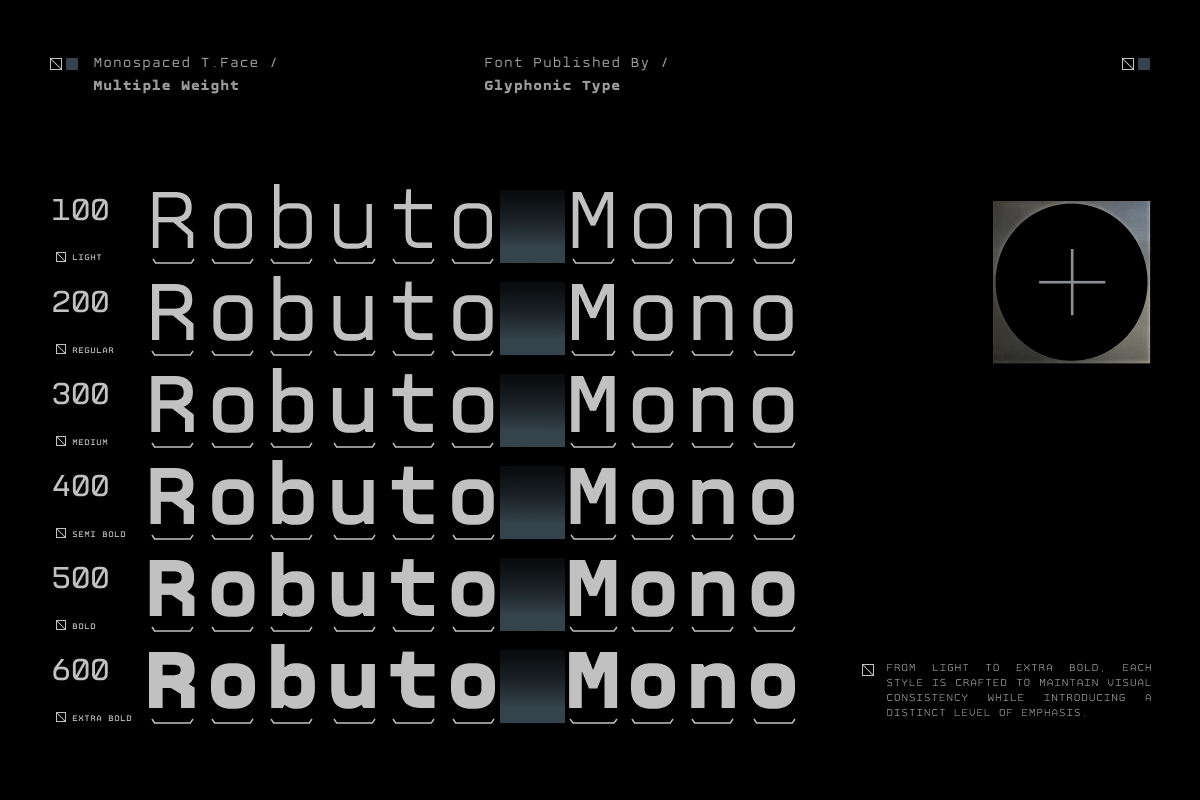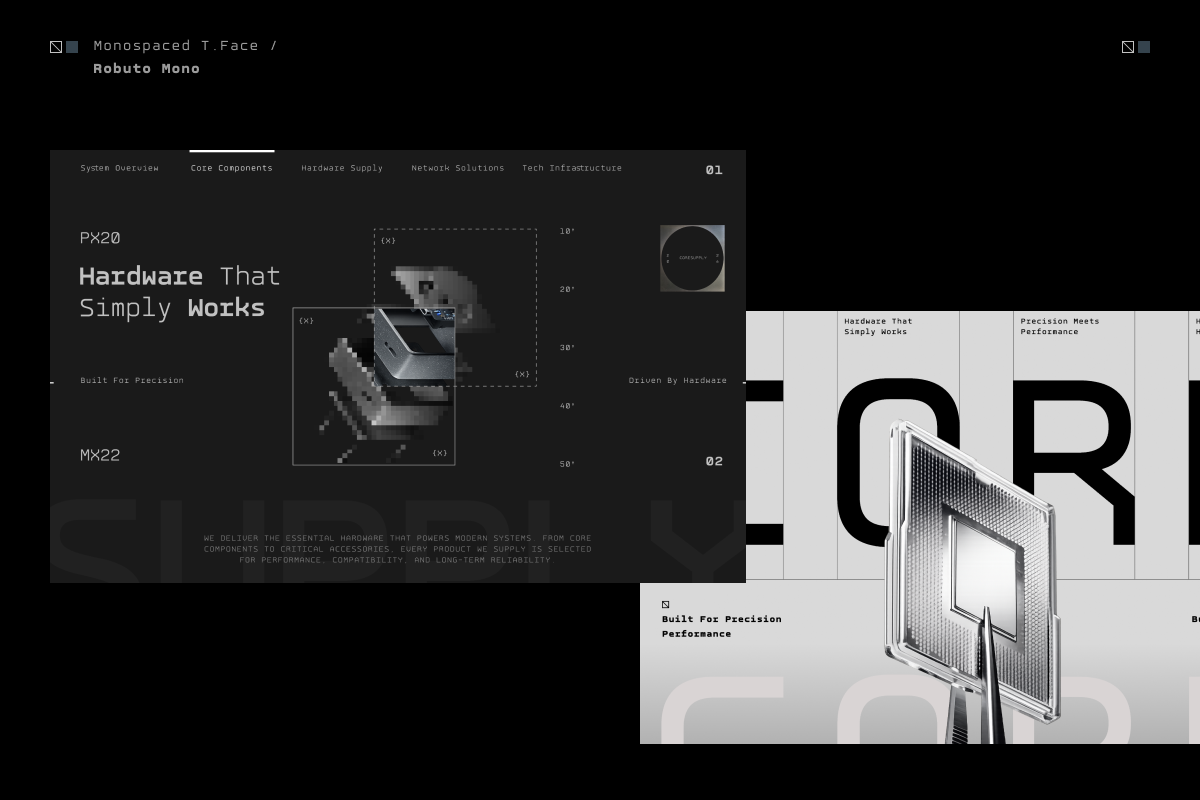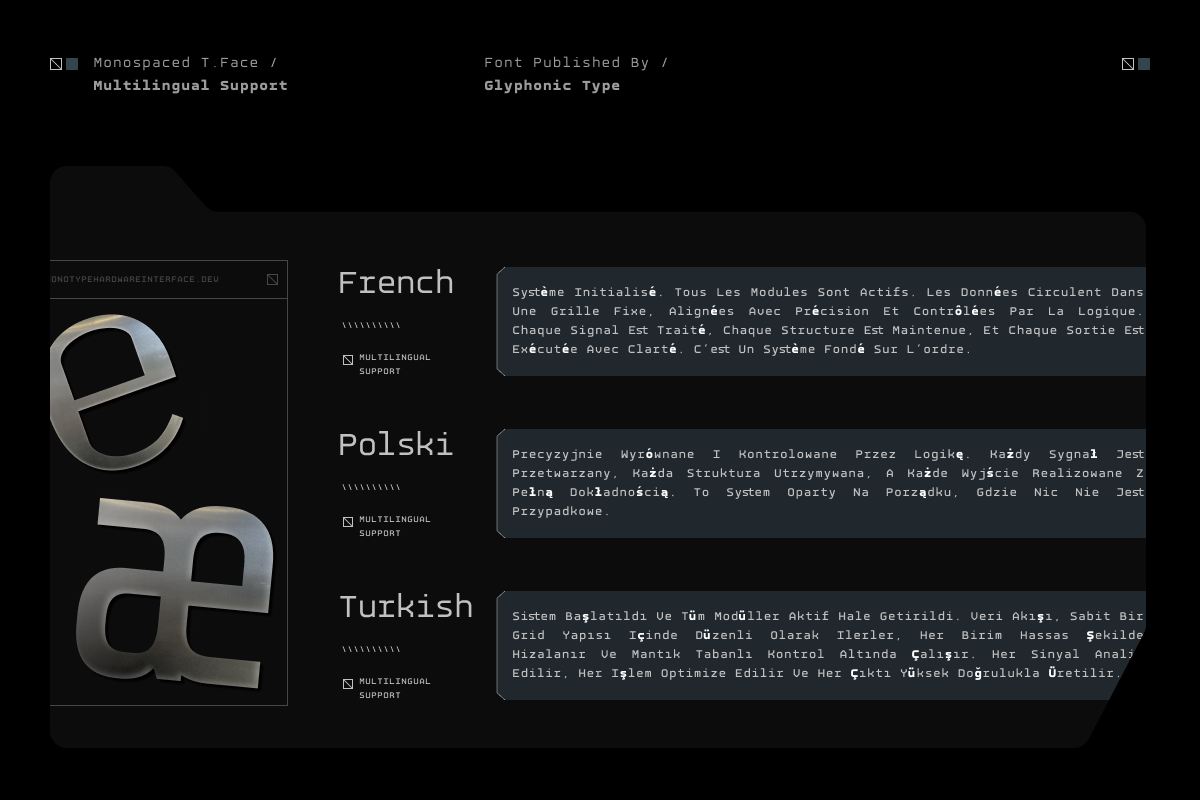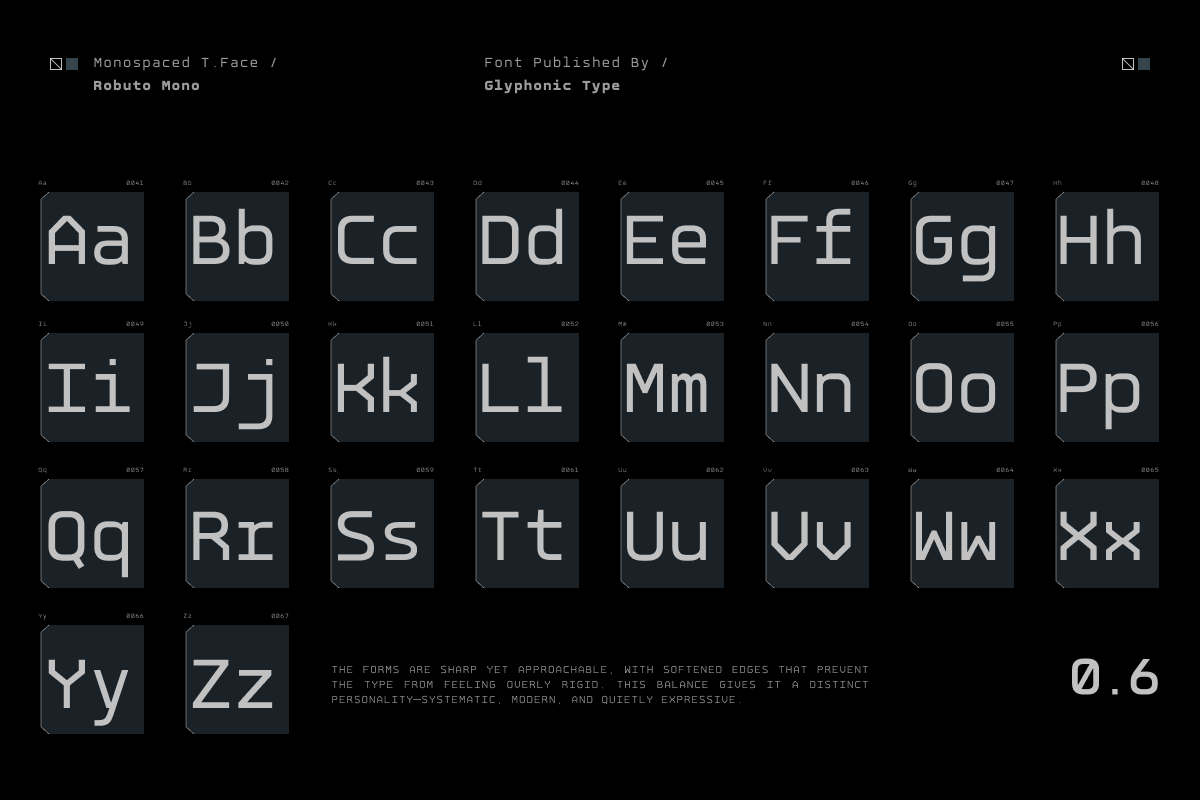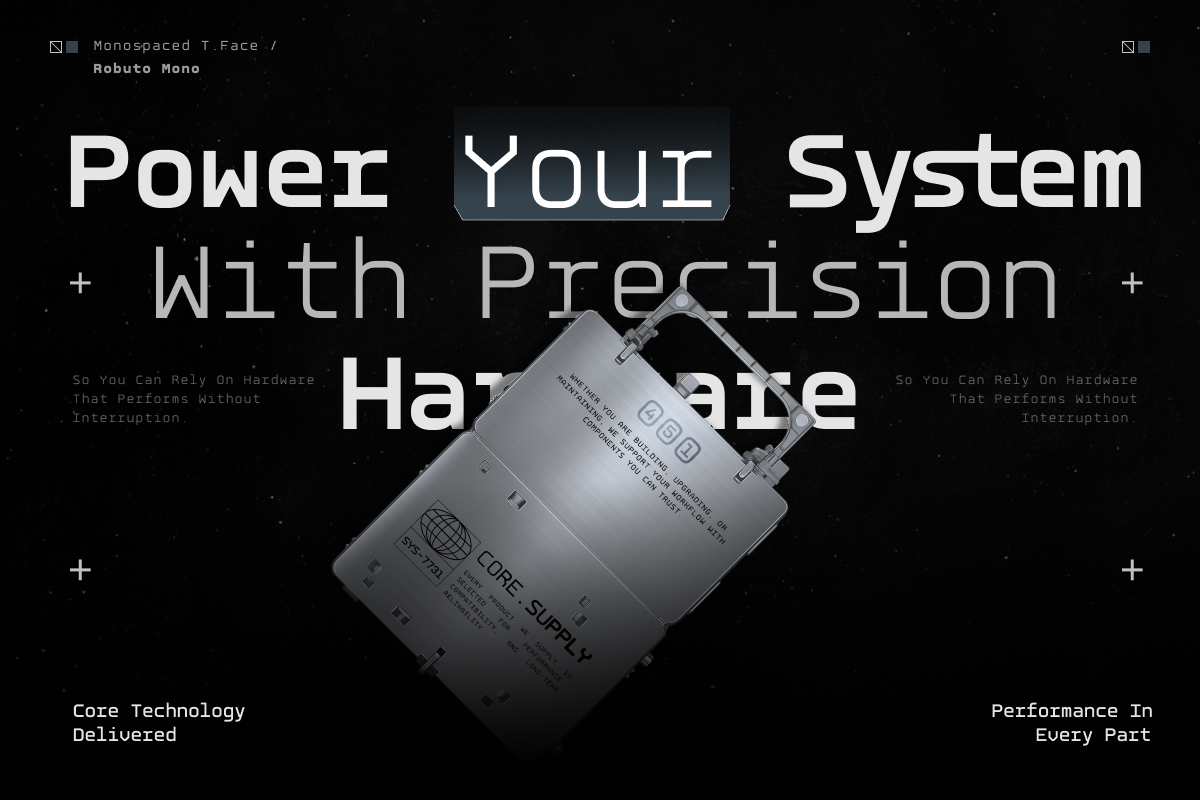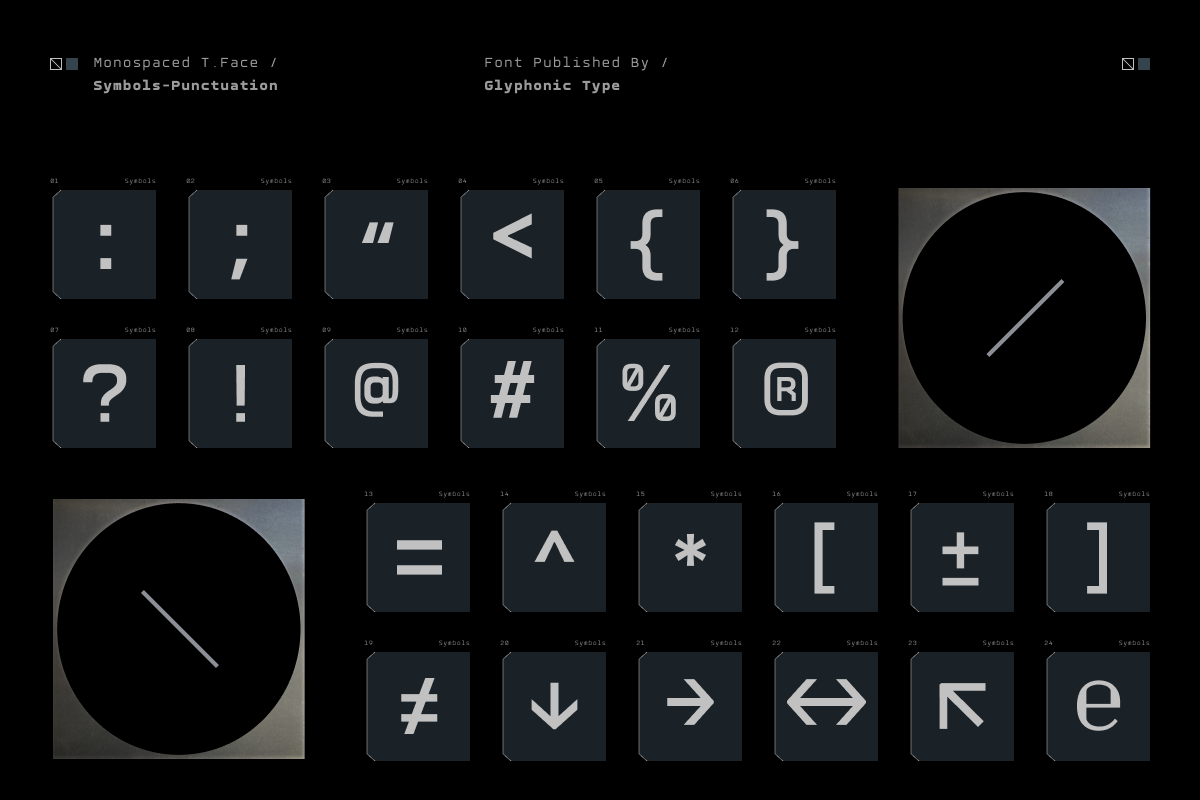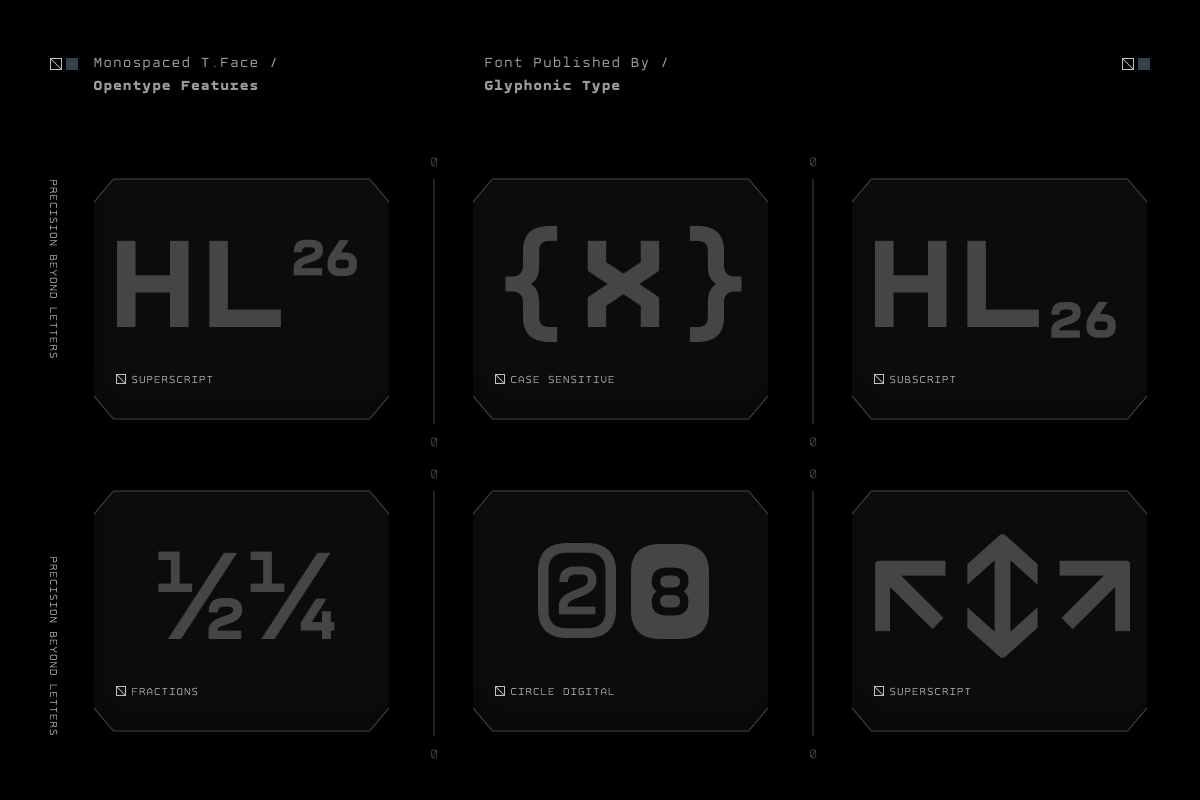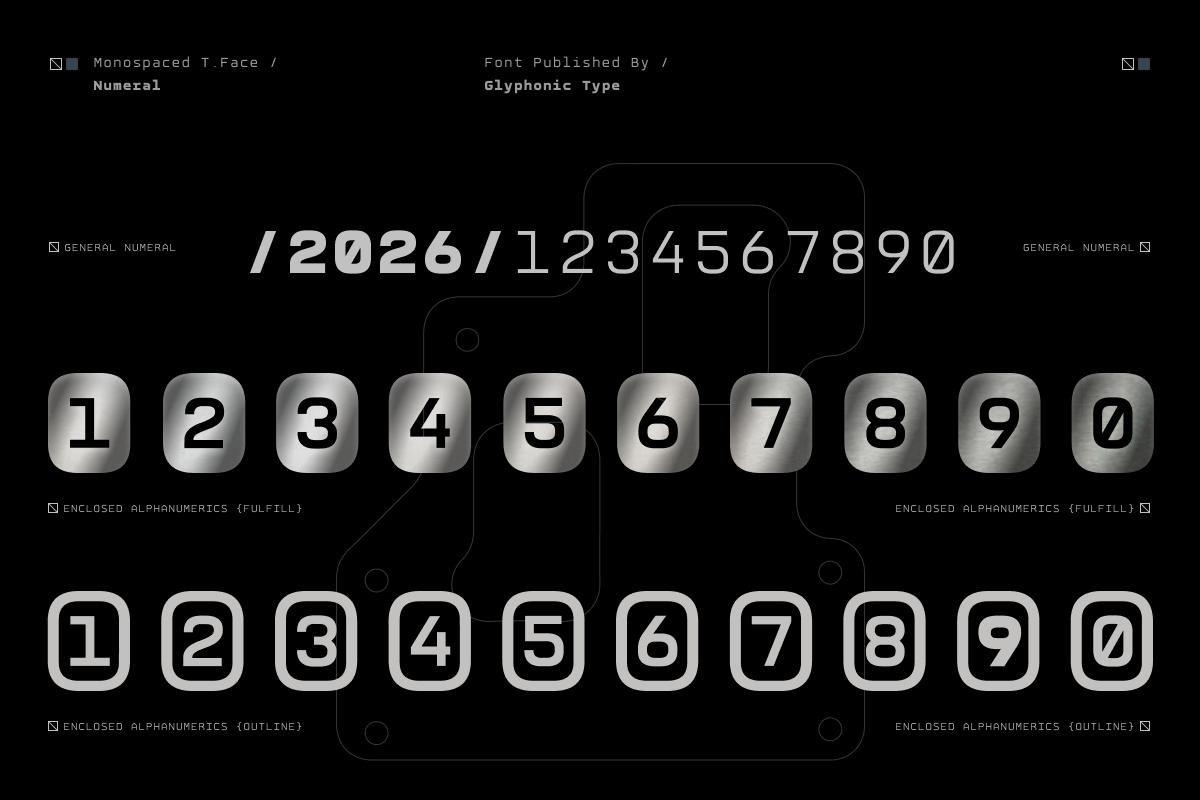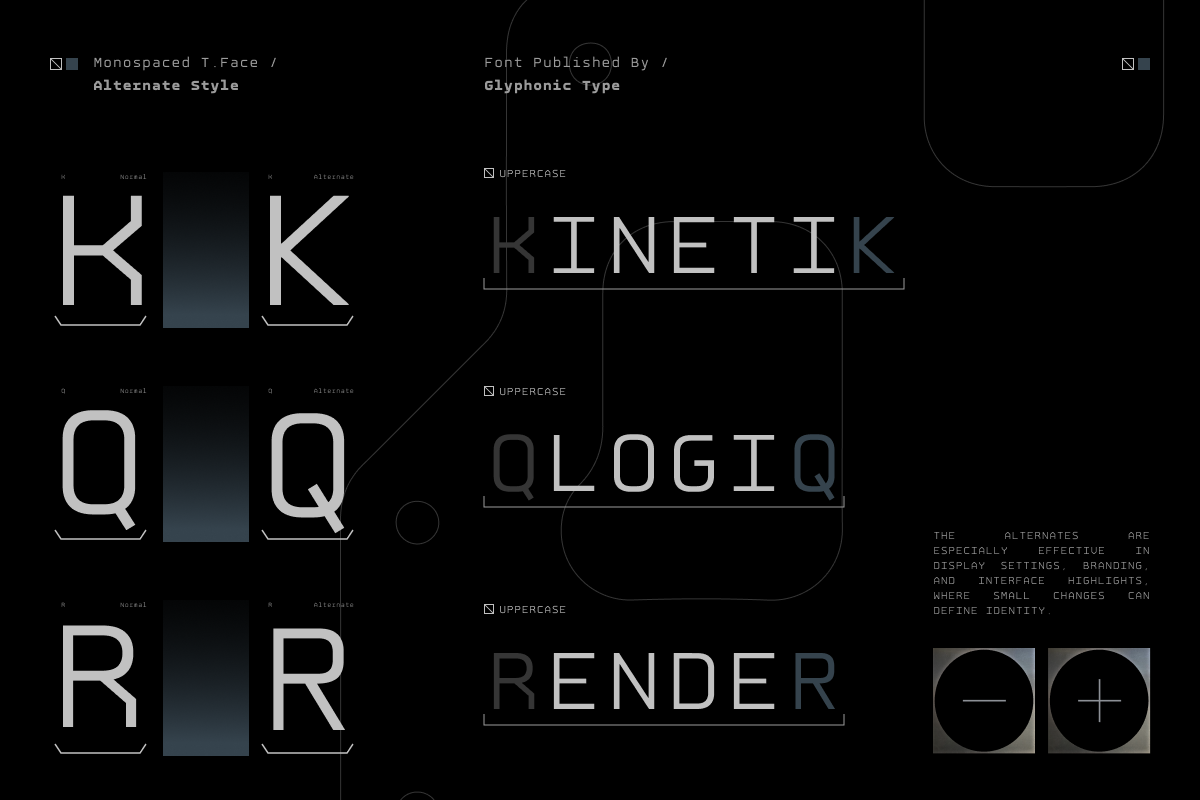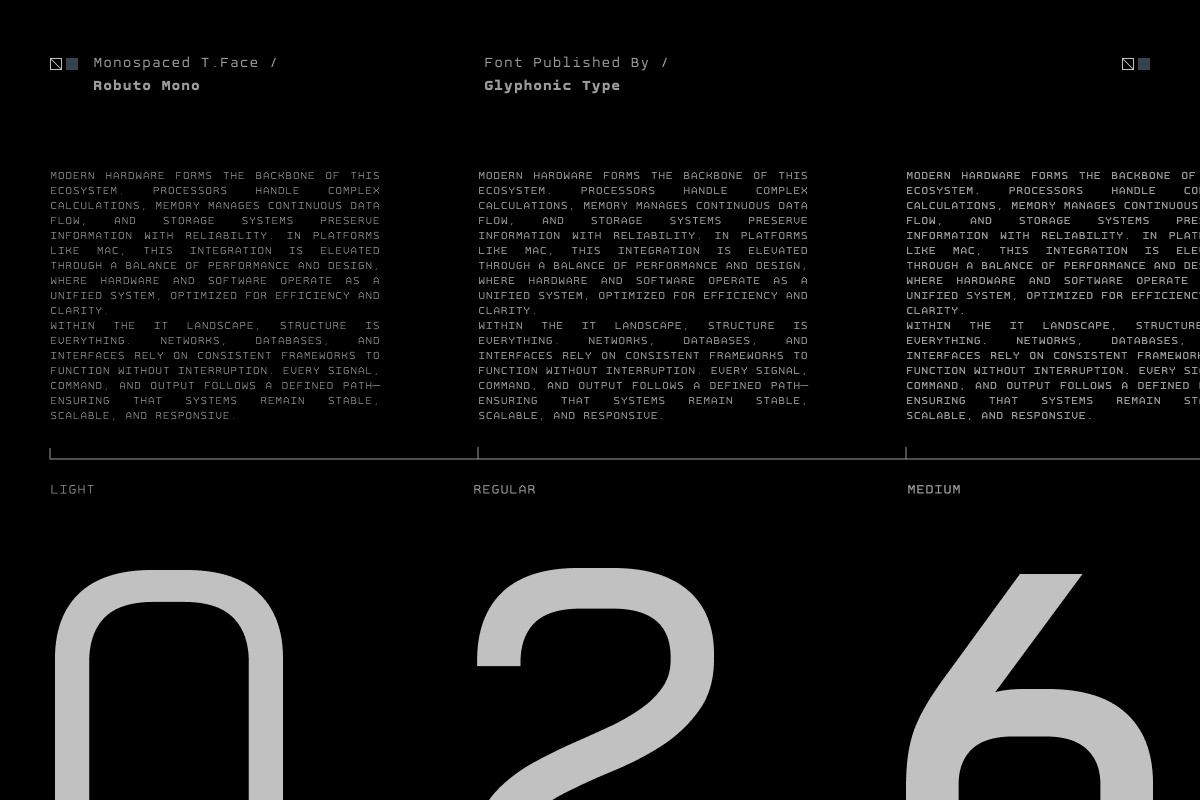
GC Robuto Mono-Futuristic Monospace
GC Robuto Mono – Futuristic Monospace is a contemporary monospaced typeface designed to combine technical precision with modern elegance. Built on a structured monospace system and refined geometric proportions, Robuto Mono delivers a clean, futuristic typographic voice that feels sophisticated, balanced, and highly functional.
With its consistent character width, smooth curves, and sharp modern detailing, GC Robuto Mono creates a strong sense of order and visual clarity. The carefully crafted letterforms bring a subtle elegance to the traditional monospace style, making it suitable for both technical and creative applications.
As a variable typeface, GC Robuto Mono offers flexible weight control, allowing designers to create clear hierarchy while maintaining the uniform rhythm that defines a monospaced font. From lightweight interface typography to bold editorial headlines, the font preserves its distinctive modern character across every weight.
Variable Font (Adjustable Weight Axis)
Modern Monospace Construction
Futuristic Geometric Letterforms
Consistent Character Width
Multilingual Support (170+ Languages)
GC Robuto Mono — futuristic precision with elegant monospace clarity.